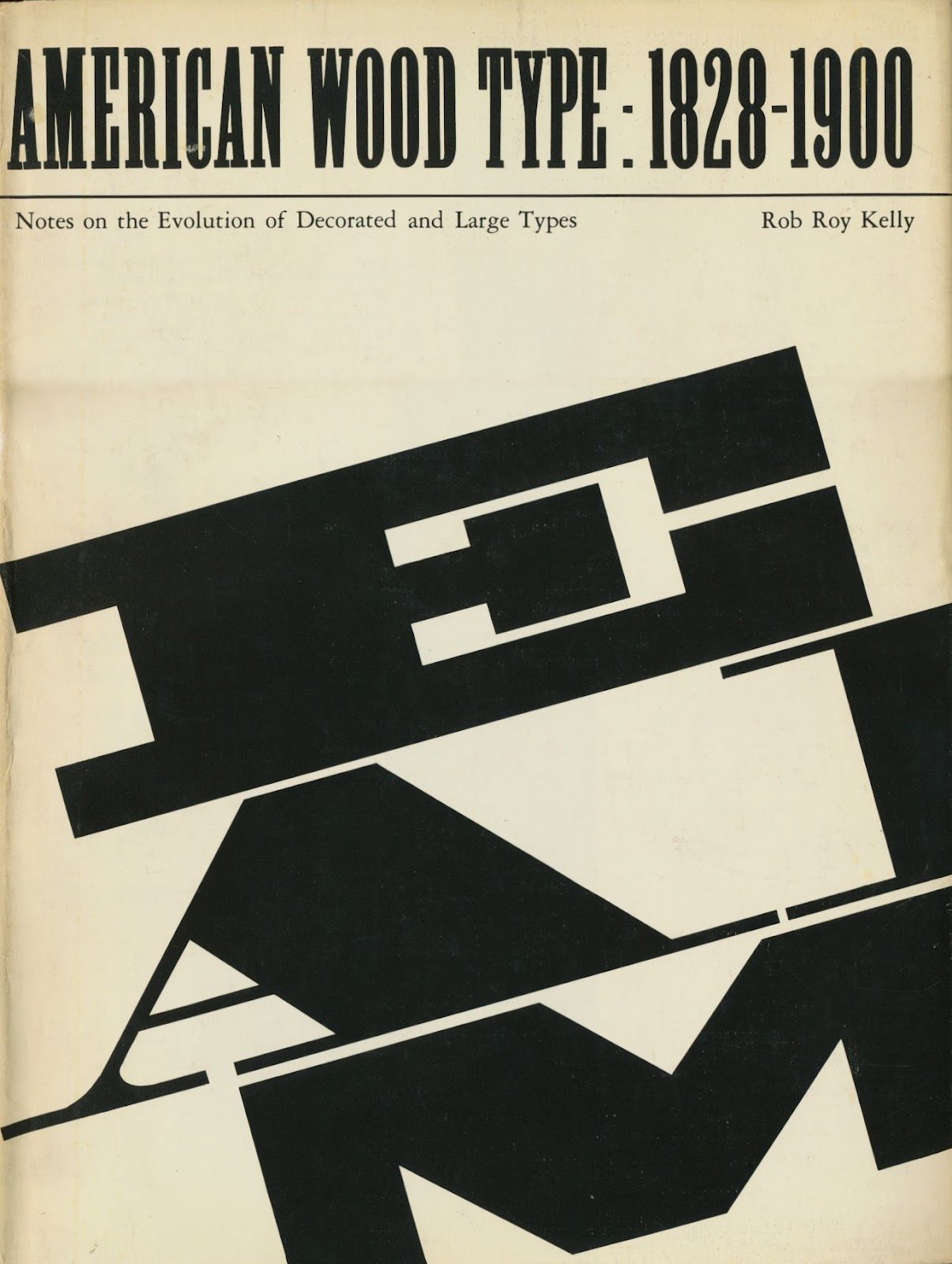
World Book Day 2019: Rob Roy Kelly's American Wood Type is a treasure to behold
Any day celebrating the book, World Book Day or National Read A Book Day, is to be celebrated with the best (typographic related if possible) books the world has to offer. Enter Rob Roy Kelly's "American Wood Type: 1828-1900 - Notes on the Evolution of Decorated and Large Types".
This massive tome of inspiration and nostalgia is the first and most authoritative history of wood type in the United States. The book tells the complete story of wood type, beginning with the history of wood as a printing material, the development of decorated letters and large letters, and the invention of machinery for mass-producing wood letters.
The 19th-century heyday of wood type is explored in great detail, including all aspects of design, manufacture, and marketing, and the evolution of styles. Many related trades interacted with wood type production; the book examines the influence of lithography, letterpress, metal-plate and wood engraving, sign painting and calligraphy, poster printing, and type-founding. Long out of print, the book is still regarded by scholars and designers as an invaluable resource for a rich legacy of typographic art. More than 600 specimens of wood type are classified and annotated, as are more than 100 specimens of complete fonts.
The book, first published in 1969, has been reissued in 2016 with a new foreword by David Shields, then Design Curator of the Rob Roy Kelly Wood Type Collection at the University of Texas at Austin, discussing the renewed interest in the subject since the mid-1990s as well as ongoing research into the history of wood type.
The Rob Roy Kelly Wood Type Collection is a comprehensive collection of wood type, comprised of nearly 150 faces of various sizes and styles. Rob Roy Kelly (1925–2004) the noted design educator, collector, and historian began gathering the types in the late 1950s and continued adding to the collection through the mid-1960s.
His decade-long research project culminated in the publication of "American Wood Type, 1828–1900: Notes on the Evolution of Decorated and Large Types and Comments on Related Trades of the Period", which remains today to the preeminent history of wood type.
Last November Shields gave a talk in the Rose Auditorium at The Cooper Union as part of the Type@Cooper Program. David Shields is an Associate Professor and Chair of the Department of Graphic Design at Virginia Commonwealth University in Richmond and he is currently focusing his research on 19th century typographic form and visual culture arising from investigations of Rob Roy Kelly’s American Wood Type Collection.
Read the book, watch the talk, do whatever you like, but do fall in love with American Wood Type as much as we do.